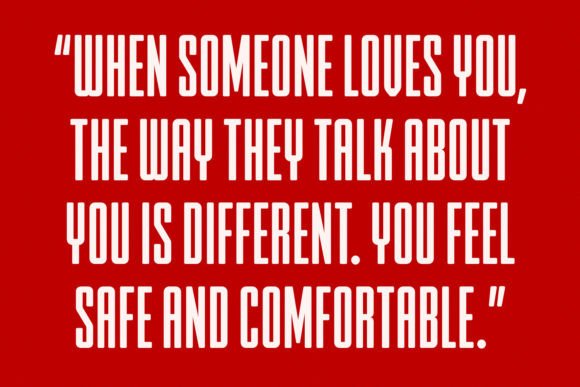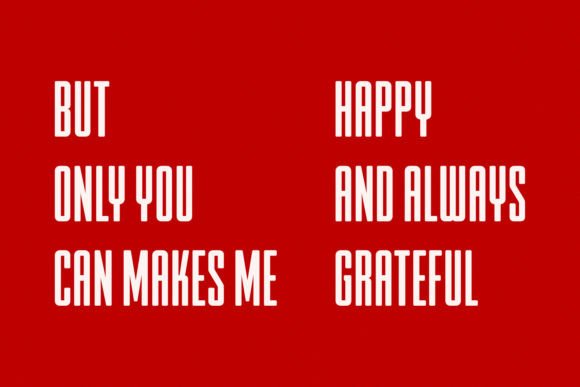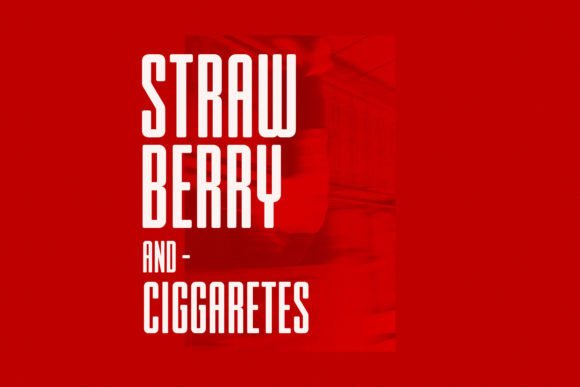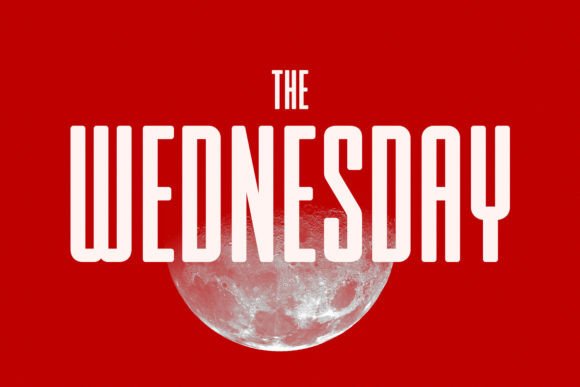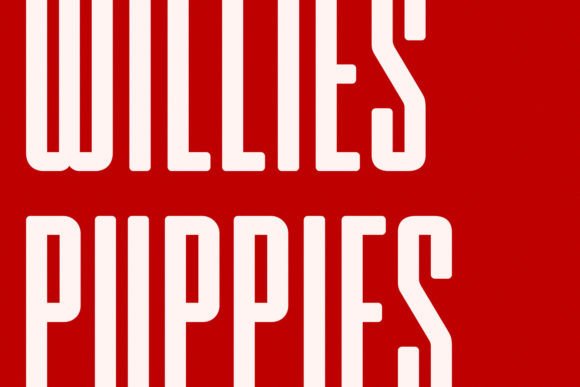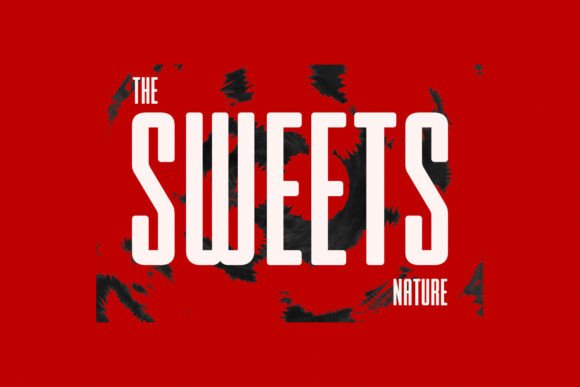
Introducing Adensor Font: Elevate Your Designs with Modern Elegance
In the world of typography, fonts play a crucial role in conveying messages, expressing creativity, and capturing the audience’s attention. For designers, crafters, and creative enthusiasts, finding the perfect font can be a daunting task. However, if you’re looking for a modern, versatile, and stylish font, look no further than Adensor Font. In this article, we’ll explore the features, benefits, and uses of Adensor Font, and why it’s an excellent addition to your typography collection.
What is Adensor Font?
Adensor Font is a modern condensed sans serif font that boasts medium contrast strokes, giving it a unique and elegant appearance. Designed with creativity in mind, Adensor features fun characters, ligatures, and alternates, making it an excellent choice for designers seeking to add a touch of personality to their work.
Key Features of Adensor Font
• Modern Condensed Design: Adensor Font’s sleek and condensed design makes it perfect for headlines, titles, and short texts, while maintaining readability and legibility.
• Medium Contrast Strokes: The font’s medium contrast strokes add a touch of sophistication and elegance, making it suitable for a wide range of design applications.
• Fun Characters and Ligatures: Adensor Font’s playful characters and ligatures allow designers to add a creative twist to their work, making it ideal for logos, social media graphics, and more.
• Alternates: The font comes with alternates, providing designers with extra creative options to experiment with and make their work truly unique.
Uses of Adensor Font
Adensor Font is an incredibly versatile font that can be used in various design applications, including:
• Logo Design: Create stunning logos that make a lasting impression with Adensor Font’s modern and elegant design.
• Social Media Graphics: Elevate your social media presence with eye-catching graphics, posts, and stories designed with Adensor Font.
• Movie and Book Titles: Add a touch of sophistication to movie and book titles with Adensor Font’s condensed and elegant design.
• Short and Long Text: Use Adensor Font for short texts, such as headings and titles, or longer texts, like articles and blog posts, and enjoy its excellent readability.
• Secondary Text: Pair Adensor Font with sans or serif fonts to create a harmonious and visually appealing design.
Why Choose Adensor Font?
With so many fonts available, why choose Adensor Font? Here are a few compelling reasons:
• Unique Design: Adensor Font’s modern condensed design and medium contrast strokes make it stand out from other fonts.
• Versatility: The font’s versatility makes it suitable for a wide range of design applications, from logos to long texts.
• Ease of Use: Adensor Font is easy to use and pairs well with other fonts, making it a great addition to your typography collection.
In conclusion, Adensor Font is an excellent choice for designers, crafters, and creative enthusiasts seeking a modern, elegant, and versatile font. With its unique design, medium contrast strokes, fun characters, and alternates, Adensor Font is perfect for a wide range of design applications. Whether you’re creating logos, social media graphics, movie titles, or book titles, Adensor Font is sure to elevate your designs and make them truly stunning. So, what are you waiting for? Make stunning work with Adensor Font and take your designs to the next level!